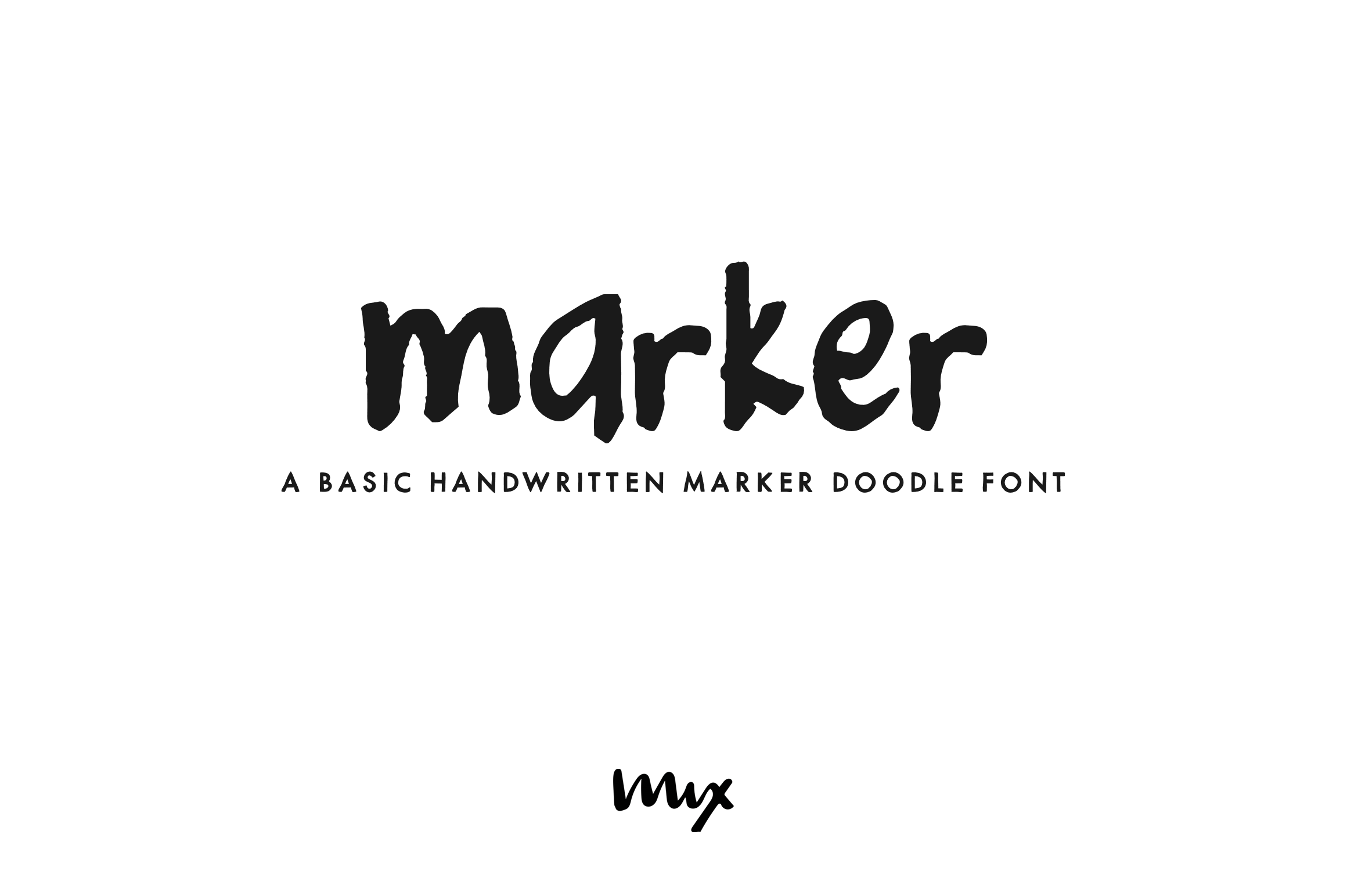
Marker — A Handwritten Doodle Font
MIX MARKER is a playful and unique handwritten label font that adds a touch of human flair to your projects. Imagine writing your name on a mailing label with a marker – that's the fun, casual look and feel of this special font. Each character was handdrawn with a basic everyday marker, and then carefully digitized, cleaned up, and converted into a font. MIX MARKER is perfect for adding a handmade touch to DIY themed projects, or for giving your digital designs a handlettered feel. So why wait? Make what's digital seem handwritten with MIX MARKER .
Great marker font because it has a nice solid weight and also offers both uppercase and lowercase letters. Wish there were more letter variations that is my only critique. Sometimes it's nice on these kinds of fonts to have the letters look a little varied. Otherwise love it. Keep up the good work Mix Fonts!